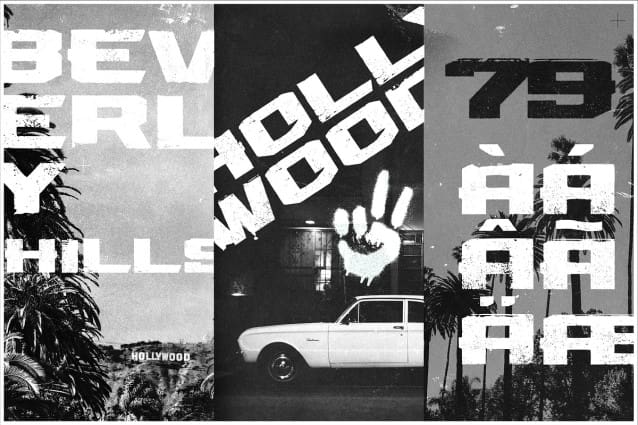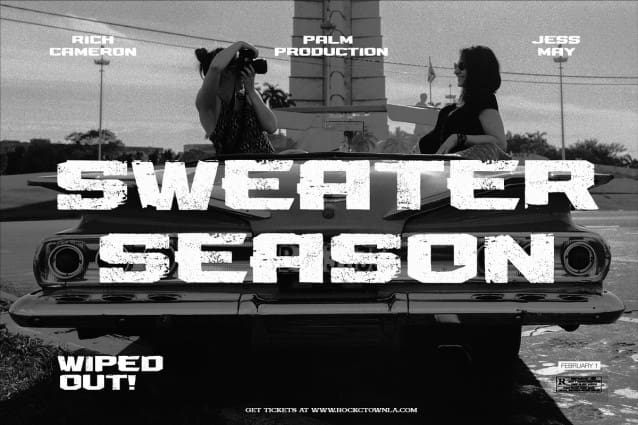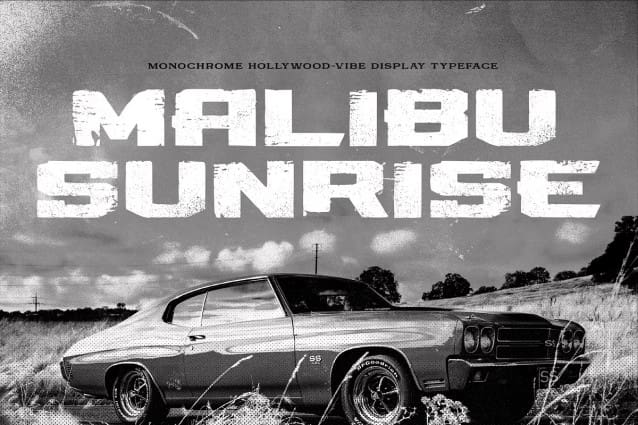
Malibu Sunrise Font
Malibu Sunrise Font, a digital font that captures the evocative feeling of iconic 90’s Hollywood and the serene, atmospheric essence of indie rock. Inspired by the moody, introspective sounds of indie rock ,Malibu Sunrise brings a monochrome calm and timeless sophistication to your creative projects.
Nostalgic Aesthetic: Evoking the cinematic charm of 90’s Hollywood, this font combines classic elegance with a modern touch.
Versatile Design: Perfect for everything from album covers and movie posters to social media graphics and branding projects.
Atmospheric Appeal: Each character is crafted to resonate with the tranquil, reflective vibes of your favorite indie tracks, adding a subtle emotional depth to your work.
Why Choose Malibu Sunrise?
Malibu Sunrise isn’t just a typeface; it’s an experience. It draws on the soothing, introspective qualities of atmospheric indie rock and the timeless cool of 90’s Hollywood, making it the ideal choice for projects that seek to evoke a deep emotional connection and a sense of refined nostalgia.
Includes all caps alphabet with numbers, punctuations, special characters and multilingual support.
Let Malibu Sunrise infuse your designs with the serene, monochrome beauty and nostalgic charm of a 90’s Hollywood night. Create visuals that resonate with quiet sophistication and timeless elegance, all through the power of thoughtfully crafted typography.